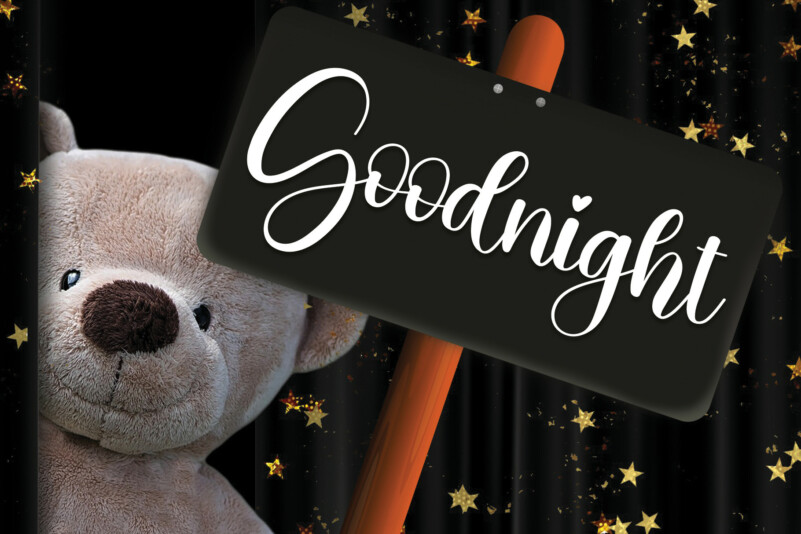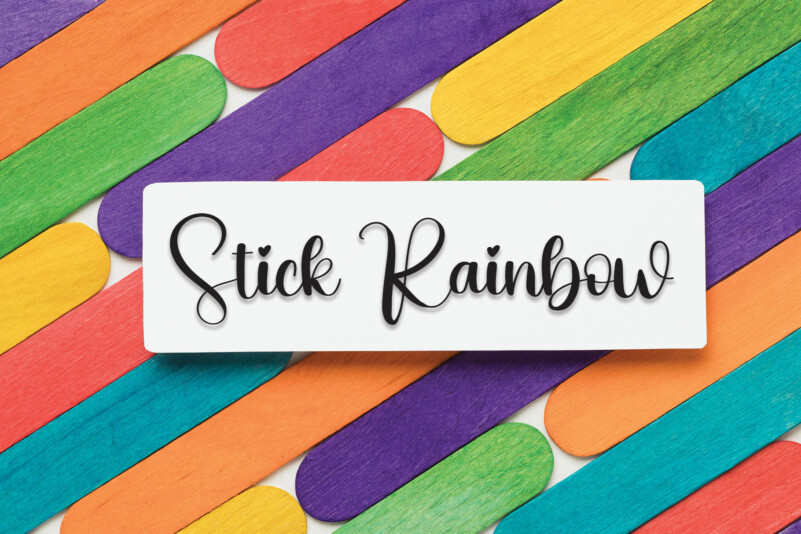
Duck Script Font
Duck Script Font is a fun and joyful handwritten script font. Whether you’re using it for crafts, digital design, presentations, or making greeting cards, this font has the potential to become your favorite go-to font, no matter the occasion!